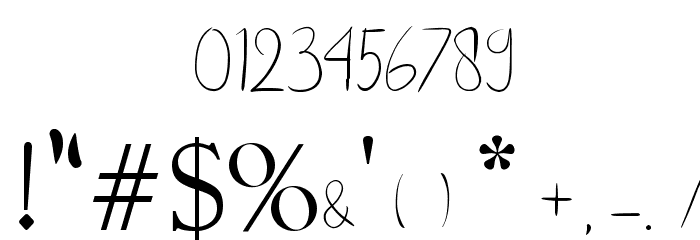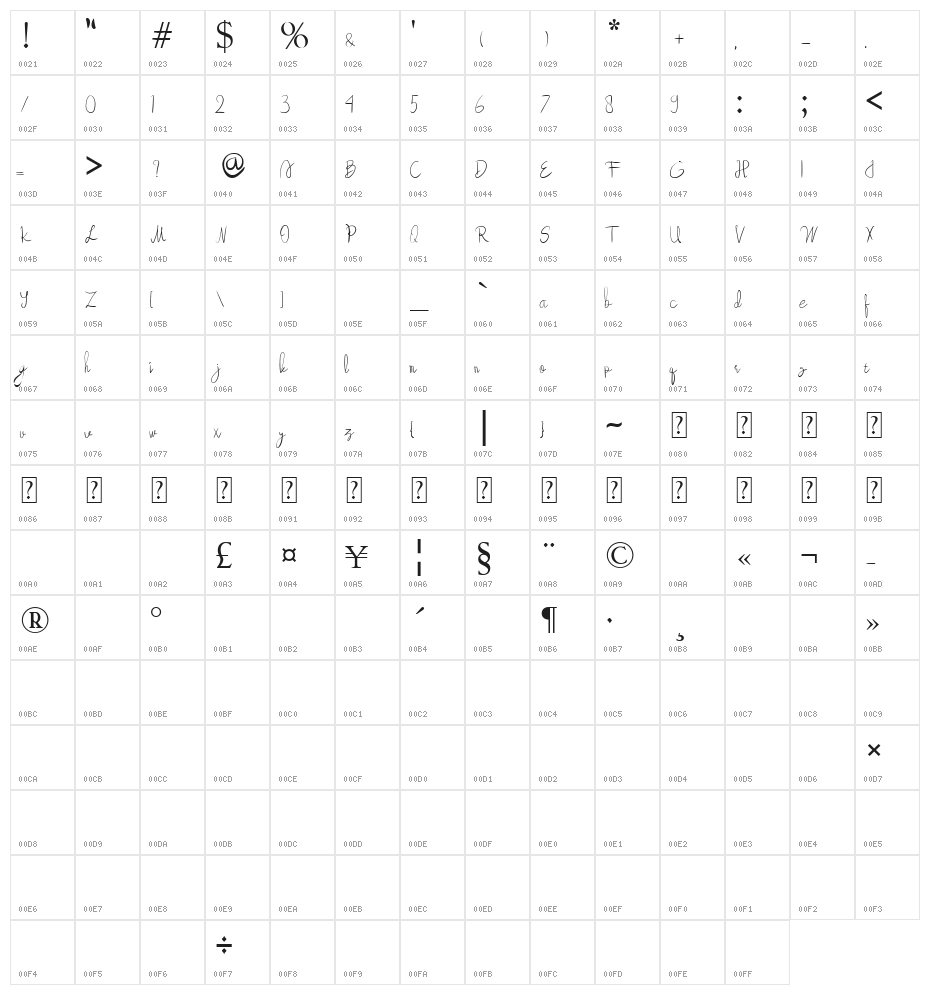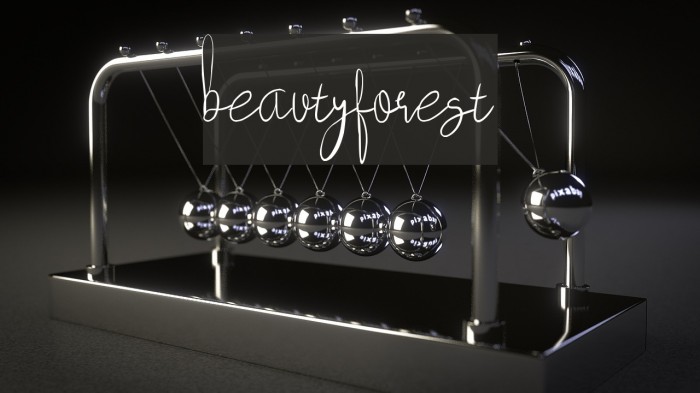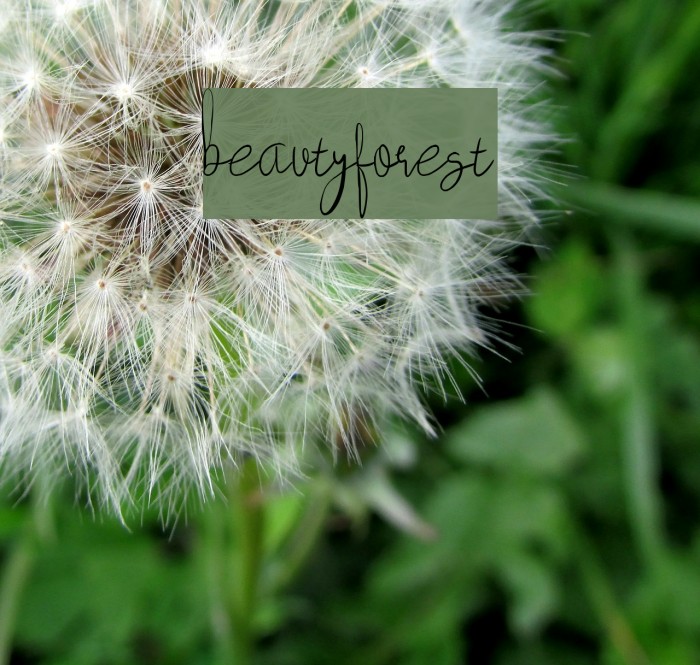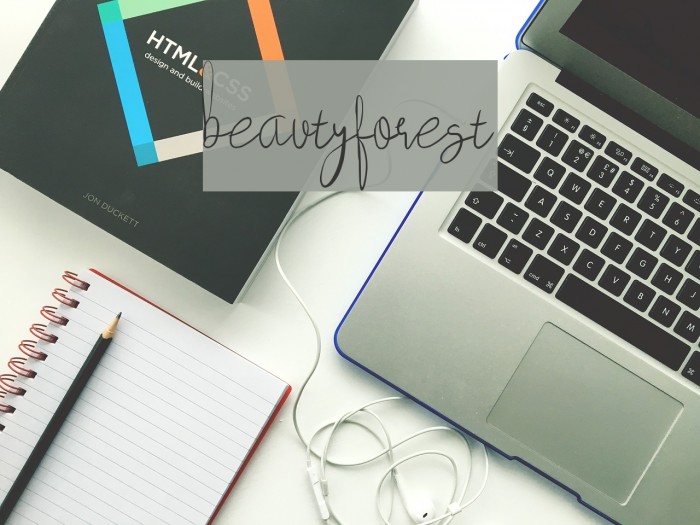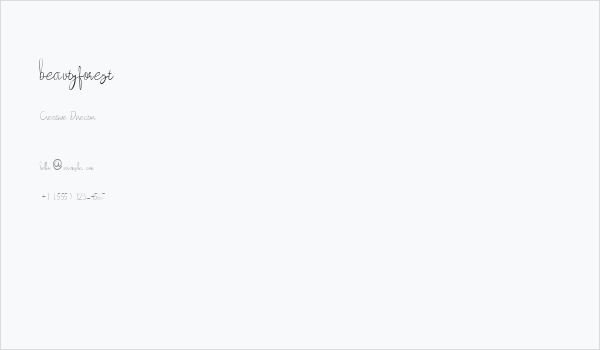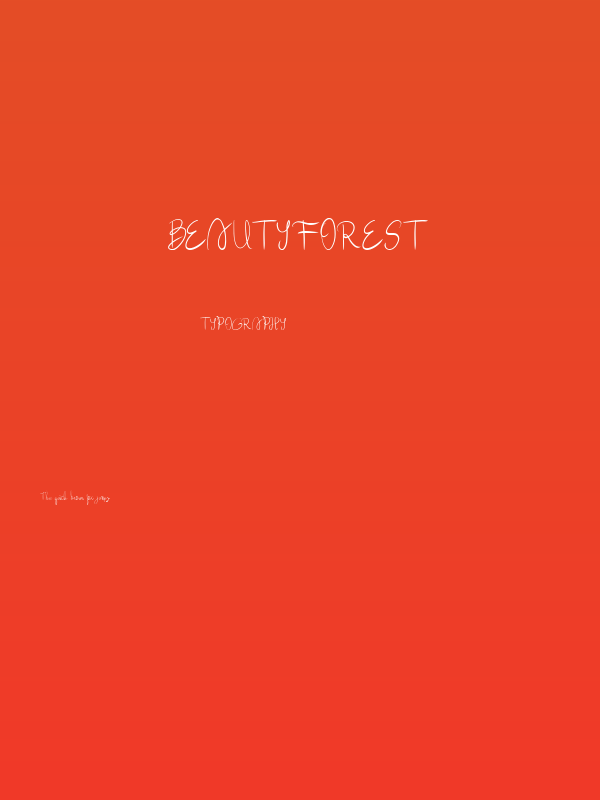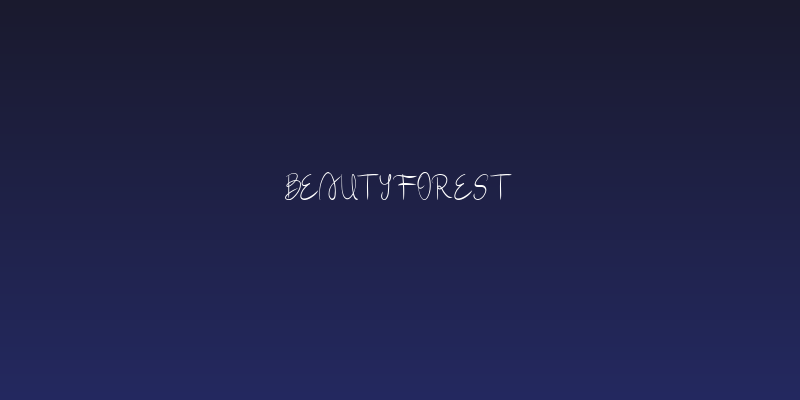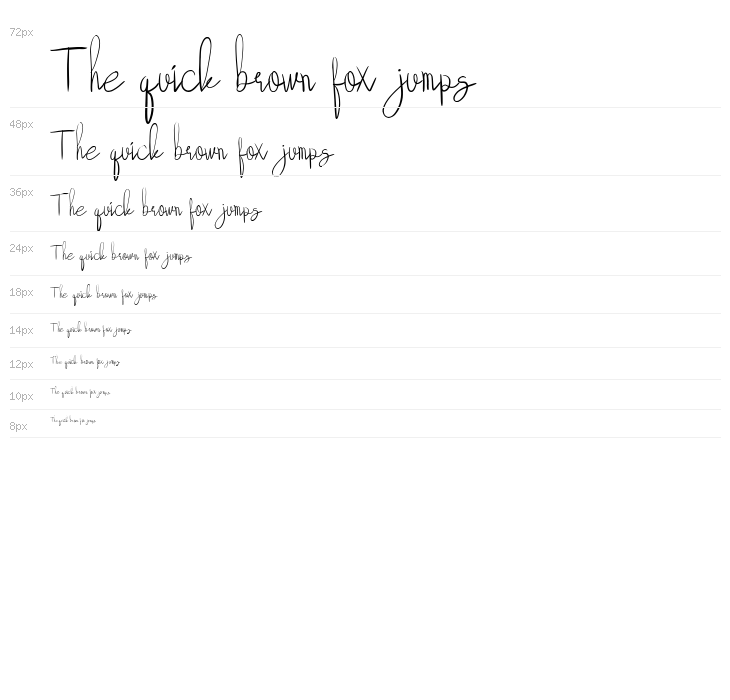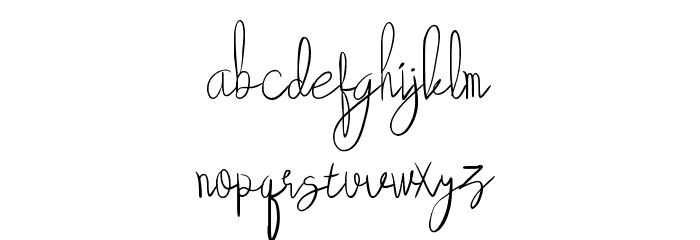
beautyforest Font
beautyforest Description
This font exudes a whimsical and elegant charm, characterized by its flowing, cursive style. The uppercase letters are tall and slender, with graceful loops and curves that give them a sense of movement and fluidity. The lowercase letters maintain a consistent style, with delicate strokes and a slightly playful touch. Numbers are designed to match the overall aesthetic, featuring similar curves and a light, airy feel. Special characters are thoughtfully integrated, maintaining the font's cohesive and artistic appearance. This font is perfect for projects that require a touch of sophistication and creativity.
| Overall Style | Elegant, Whimsical |
| Use Case | Headlines, Invitations, Artistic projects |
| Proposed Projects | Ideal for wedding invitations, greeting cards, branding, and artistic projects that require a personal touch. |